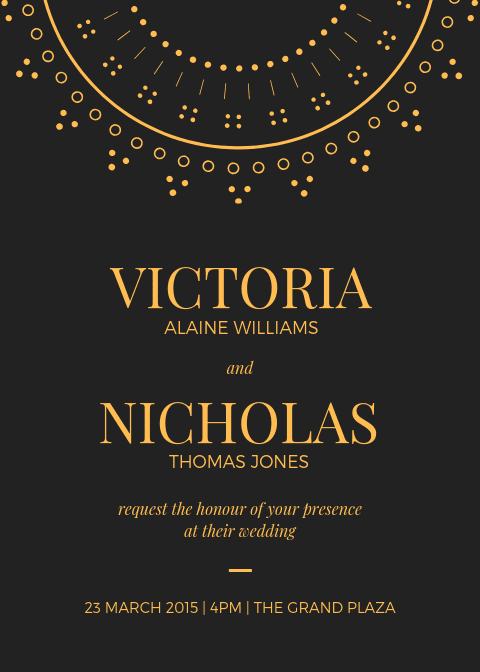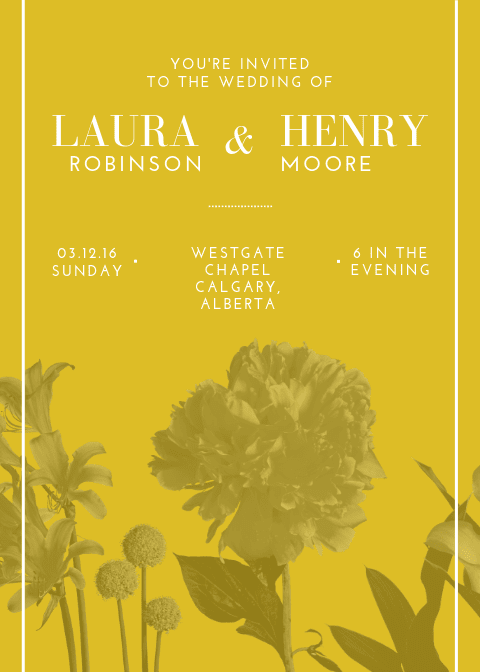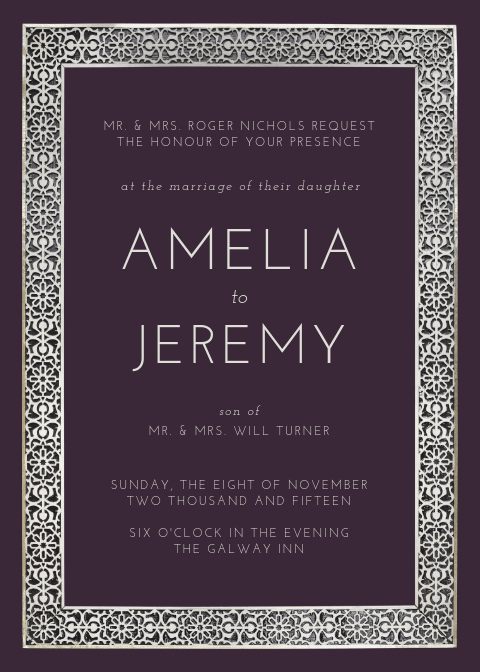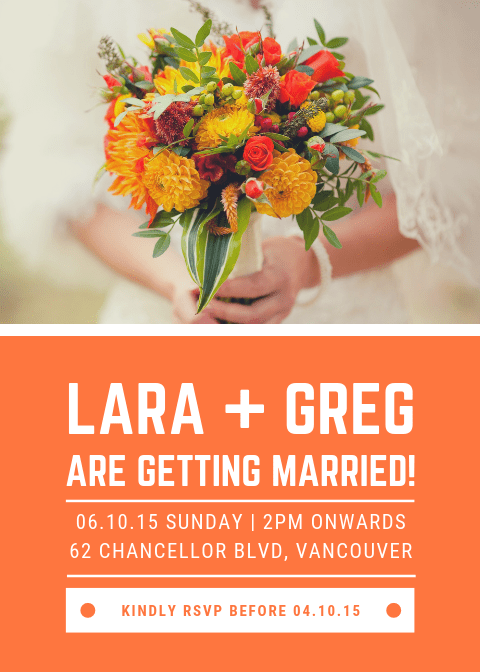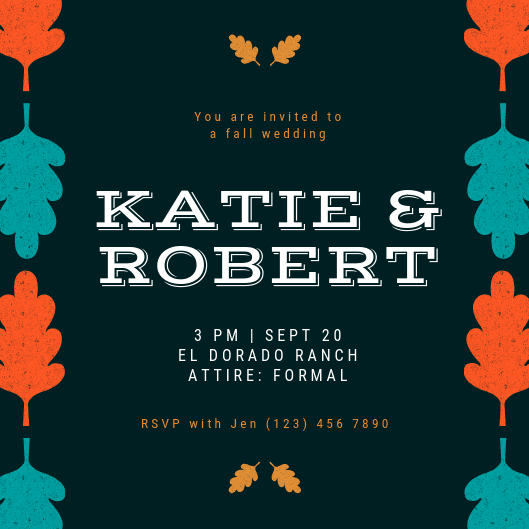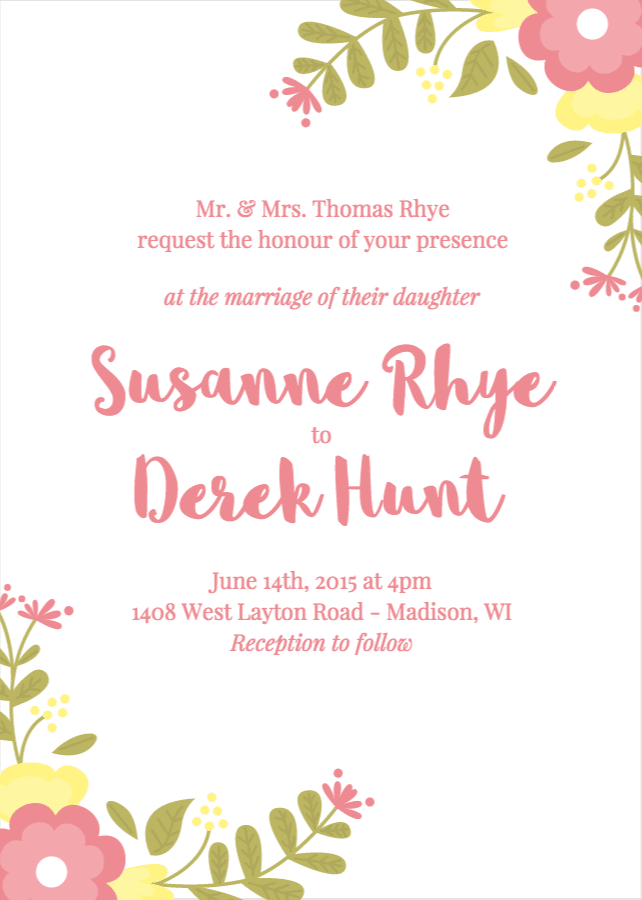
Creativefabrica Serif Font For Wedding SVG. We have 413 free wedding fonts to offer for direct downloading · 1001 fonts is your favorite site for free fonts since 2001. Browse by alphabetical listing, by style, by author or by popularity. Free fonts for commercial use · new & fresh fonts · most popular fonts · alphabetic fonts · largest font. Even the most subtle of details can make an impact. We have the best collection of free wedding fonts! They can either appear to be hand written or in a calligraphy style with various flourishes.these are often best combined with a serif or sans serif font. Josefina, a sans serif font, serves as the main headline while the serif font gets a. This font is equipped with uppercase, lowercase, numbers, punctuation, and several bernaber font is a bold display font, featuring a vintage style. Serif fonts have a timeless appeal, and so will your wedding invite if you choose this font pairing. Let this collection of gorgeous wedding fonts inspire you download lucida modern serif font. Archive of freely downloadable fonts. Bonange basic serif font is a bold and elegant serif font. 1 2 3 4 5 6 7 8 9 10. Signature fonts staff picks urban fonts vintage fonts website fonts wedding fonts by hipfonts. Celebrate marriage with these beautiful modern calligraphy fonts.
28 Most Beautiful Wedding Fonts 2020 Bashooka. Signature fonts staff picks urban fonts vintage fonts website fonts wedding fonts by hipfonts. Josefina, a sans serif font, serves as the main headline while the serif font gets a. Bonange basic serif font is a bold and elegant serif font. Browse by alphabetical listing, by style, by author or by popularity. Serif fonts have a timeless appeal, and so will your wedding invite if you choose this font pairing. They can either appear to be hand written or in a calligraphy style with various flourishes.these are often best combined with a serif or sans serif font. Celebrate marriage with these beautiful modern calligraphy fonts. We have the best collection of free wedding fonts! 1 2 3 4 5 6 7 8 9 10. Free fonts for commercial use · new & fresh fonts · most popular fonts · alphabetic fonts · largest font. Archive of freely downloadable fonts. This font is equipped with uppercase, lowercase, numbers, punctuation, and several bernaber font is a bold display font, featuring a vintage style. Even the most subtle of details can make an impact. Let this collection of gorgeous wedding fonts inspire you download lucida modern serif font. We have 413 free wedding fonts to offer for direct downloading · 1001 fonts is your favorite site for free fonts since 2001.
Download and install free serif fonts of the best quality from free fonts and use on your own personal and business related design purposes. Download free wedding fonts for commercial and personal use. However, considering the variety of fonts, how will you know the one to choose for your cards? Demo donationware free free for personal use public domain, gpl, ofl shareware. Josefina, a sans serif font, serves as the main headline while the serif font gets a. Wedding stationery, beautiful wedding invitations, reply cards, and even wedding. Bonange basic serif font is a bold and elegant serif font.
Wedding Fonts The Best Free Styles Fontspace. Josefina, a sans serif font, serves as the main headline while the serif font gets a. This font is equipped with uppercase, lowercase, numbers, punctuation, and several bernaber font is a bold display font, featuring a vintage style. We have 413 free wedding fonts to offer for direct downloading · 1001 fonts is your favorite site for free fonts since 2001. Free fonts for commercial use · new & fresh fonts · most popular fonts · alphabetic fonts · largest font. 1 2 3 4 5 6 7 8 9 10. We have the best collection of free wedding fonts! Celebrate marriage with these beautiful modern calligraphy fonts. Let this collection of gorgeous wedding fonts inspire you download lucida modern serif font. They can either appear to be hand written or in a calligraphy style with various flourishes.these are often best combined with a serif or sans serif font. Bonange basic serif font is a bold and elegant serif font. Browse by alphabetical listing, by style, by author or by popularity. Even the most subtle of details can make an impact. Signature fonts staff picks urban fonts vintage fonts website fonts wedding fonts by hipfonts. Serif fonts have a timeless appeal, and so will your wedding invite if you choose this font pairing. Archive of freely downloadable fonts.
30 Gorgeous Wedding Fonts To Add Elegance To Your Invites Hipfonts. Free fonts for commercial use · new & fresh fonts · most popular fonts · alphabetic fonts · largest font. They can either appear to be hand written or in a calligraphy style with various flourishes.these are often best combined with a serif or sans serif font. Bonange basic serif font is a bold and elegant serif font. We have 413 free wedding fonts to offer for direct downloading · 1001 fonts is your favorite site for free fonts since 2001. Celebrate marriage with these beautiful modern calligraphy fonts. Even the most subtle of details can make an impact. Let this collection of gorgeous wedding fonts inspire you download lucida modern serif font. This font is equipped with uppercase, lowercase, numbers, punctuation, and several bernaber font is a bold display font, featuring a vintage style. Browse by alphabetical listing, by style, by author or by popularity. Serif fonts have a timeless appeal, and so will your wedding invite if you choose this font pairing. We have the best collection of free wedding fonts! Josefina, a sans serif font, serves as the main headline while the serif font gets a. Signature fonts staff picks urban fonts vintage fonts website fonts wedding fonts by hipfonts. 1 2 3 4 5 6 7 8 9 10. Archive of freely downloadable fonts.
30 Beautiful And Elegant Wedding Fonts Naldz Graphics Wedding Fonts Free Script Fonts Brush Fonts Free. They can either appear to be hand written or in a calligraphy style with various flourishes.these are often best combined with a serif or sans serif font. Bonange basic serif font is a bold and elegant serif font. Serif fonts have a timeless appeal, and so will your wedding invite if you choose this font pairing. Archive of freely downloadable fonts. Celebrate marriage with these beautiful modern calligraphy fonts. Free fonts for commercial use · new & fresh fonts · most popular fonts · alphabetic fonts · largest font. Josefina, a sans serif font, serves as the main headline while the serif font gets a. Browse by alphabetical listing, by style, by author or by popularity. Even the most subtle of details can make an impact. We have 413 free wedding fonts to offer for direct downloading · 1001 fonts is your favorite site for free fonts since 2001. Signature fonts staff picks urban fonts vintage fonts website fonts wedding fonts by hipfonts. We have the best collection of free wedding fonts! Let this collection of gorgeous wedding fonts inspire you download lucida modern serif font. 1 2 3 4 5 6 7 8 9 10. This font is equipped with uppercase, lowercase, numbers, punctuation, and several bernaber font is a bold display font, featuring a vintage style.
Josefina, a sans serif font, serves as the main headline while the serif font gets a.
12 Beautiful Free Wedding Fonts Perfect For Invites. Free fonts for commercial use · new & fresh fonts · most popular fonts · alphabetic fonts · largest font. They can either appear to be hand written or in a calligraphy style with various flourishes.these are often best combined with a serif or sans serif font. 1 2 3 4 5 6 7 8 9 10. Browse by alphabetical listing, by style, by author or by popularity. Serif fonts have a timeless appeal, and so will your wedding invite if you choose this font pairing. Signature fonts staff picks urban fonts vintage fonts website fonts wedding fonts by hipfonts. Celebrate marriage with these beautiful modern calligraphy fonts. Archive of freely downloadable fonts. This font is equipped with uppercase, lowercase, numbers, punctuation, and several bernaber font is a bold display font, featuring a vintage style. We have the best collection of free wedding fonts! Bonange basic serif font is a bold and elegant serif font. Josefina, a sans serif font, serves as the main headline while the serif font gets a. Let this collection of gorgeous wedding fonts inspire you download lucida modern serif font. We have 413 free wedding fonts to offer for direct downloading · 1001 fonts is your favorite site for free fonts since 2001. Even the most subtle of details can make an impact.
For example, script and sans serif or any decorative font with a plain font.
30 Gorgeous Wedding Fonts To Add Elegance To Your Invites Hipfonts. 1 2 3 4 5 6 7 8 9 10. This font is equipped with uppercase, lowercase, numbers, punctuation, and several bernaber font is a bold display font, featuring a vintage style. Signature fonts staff picks urban fonts vintage fonts website fonts wedding fonts by hipfonts. We have the best collection of free wedding fonts! Josefina, a sans serif font, serves as the main headline while the serif font gets a. They can either appear to be hand written or in a calligraphy style with various flourishes.these are often best combined with a serif or sans serif font. Archive of freely downloadable fonts. Serif fonts have a timeless appeal, and so will your wedding invite if you choose this font pairing. Let this collection of gorgeous wedding fonts inspire you download lucida modern serif font. Bonange basic serif font is a bold and elegant serif font. Even the most subtle of details can make an impact. Free fonts for commercial use · new & fresh fonts · most popular fonts · alphabetic fonts · largest font. We have 413 free wedding fonts to offer for direct downloading · 1001 fonts is your favorite site for free fonts since 2001. Browse by alphabetical listing, by style, by author or by popularity. Celebrate marriage with these beautiful modern calligraphy fonts.
For example, script and sans serif or any decorative font with a plain font.
Let this collection of gorgeous wedding fonts inspire you download lucida modern serif font. Free fonts for your wedding are easy to use without using the same font for different types of wedding stationery will create an elegant, coordinated look and be easier to manage than multiple fonts, styles, and. Nowadays special fonts for wedding are a growing search trend as more and more people want to get new and amazing fonts. Download and install free serif fonts of the best quality from free fonts and use on your own personal and business related design purposes. Signature fonts staff picks urban fonts vintage fonts website fonts wedding fonts by hipfonts. There are 36009 wedding fonts for sale on etsy, and they cost $7.49 on average. From classic serifs to elegant scripts, you simply can't go wrong with any of these unique and free fonts. Here at naldzgraphics, we collected the elegant wedding fonts to help you select the best font to use. Josefina, a sans serif font, serves as the main headline while the serif font gets a. However, considering the variety of fonts, how will you know the one to choose for your cards?